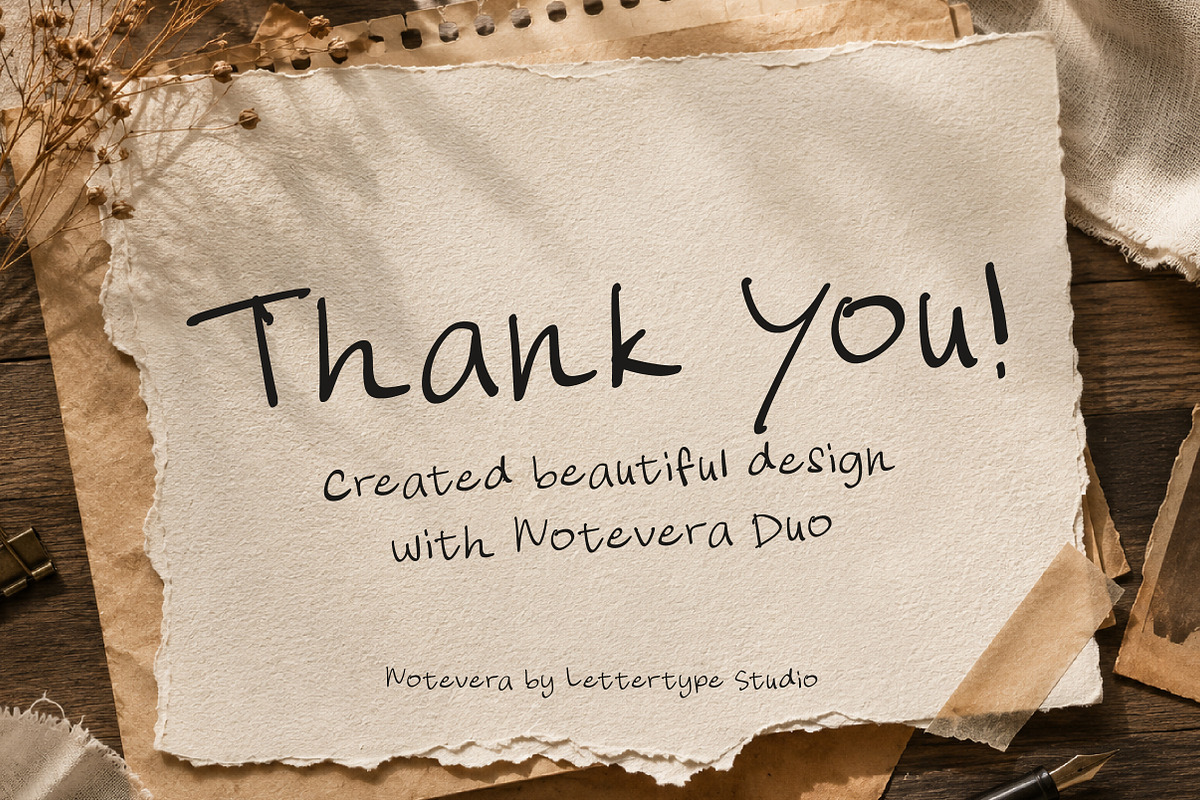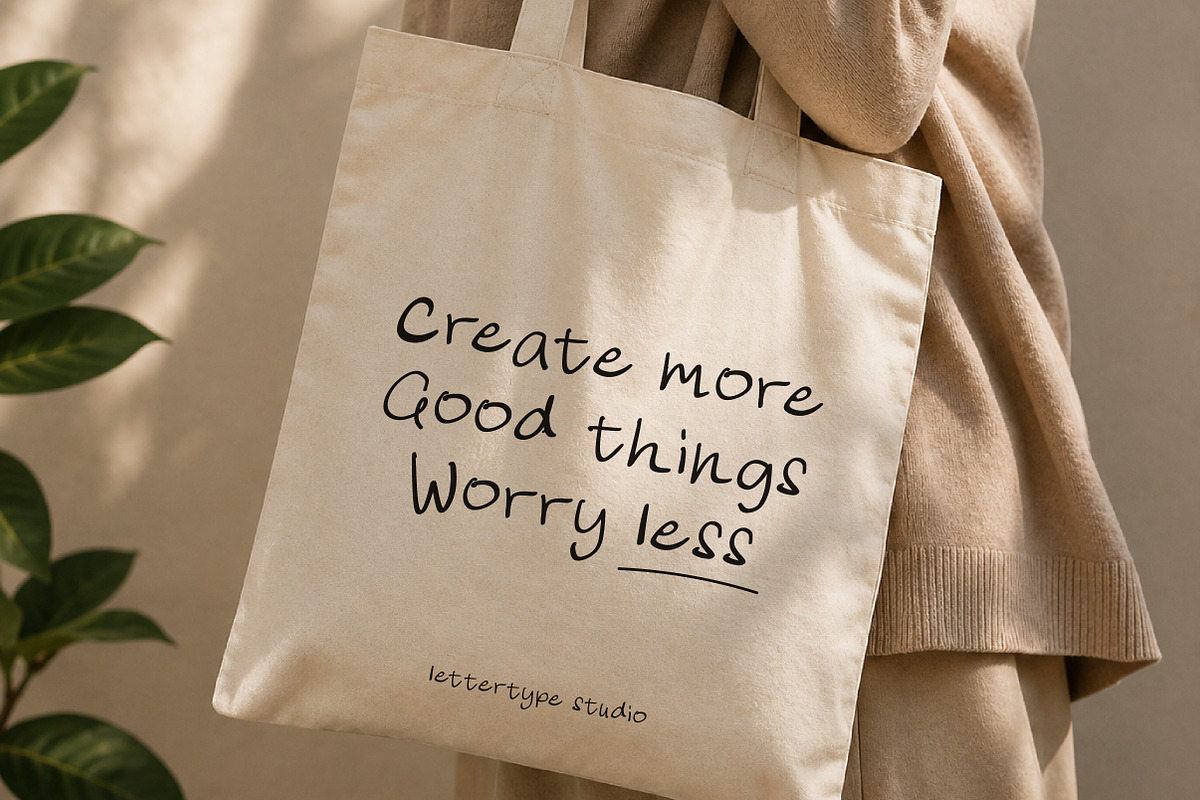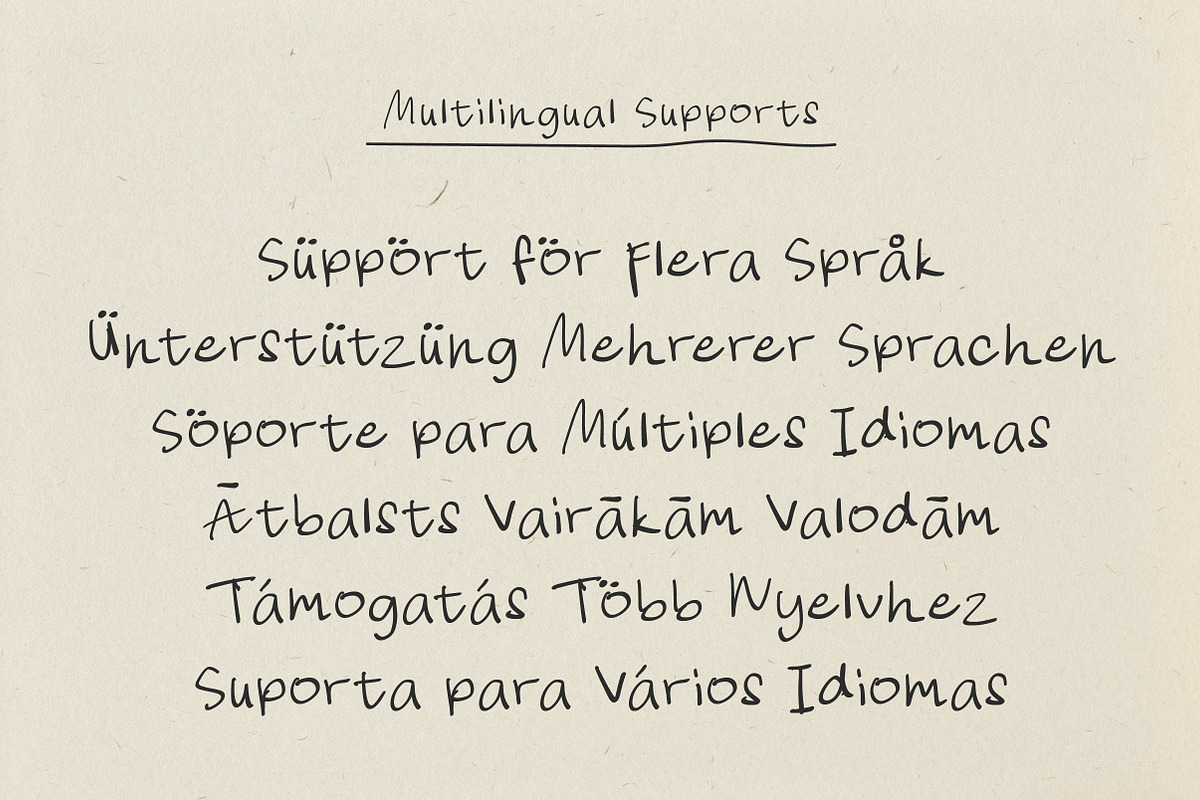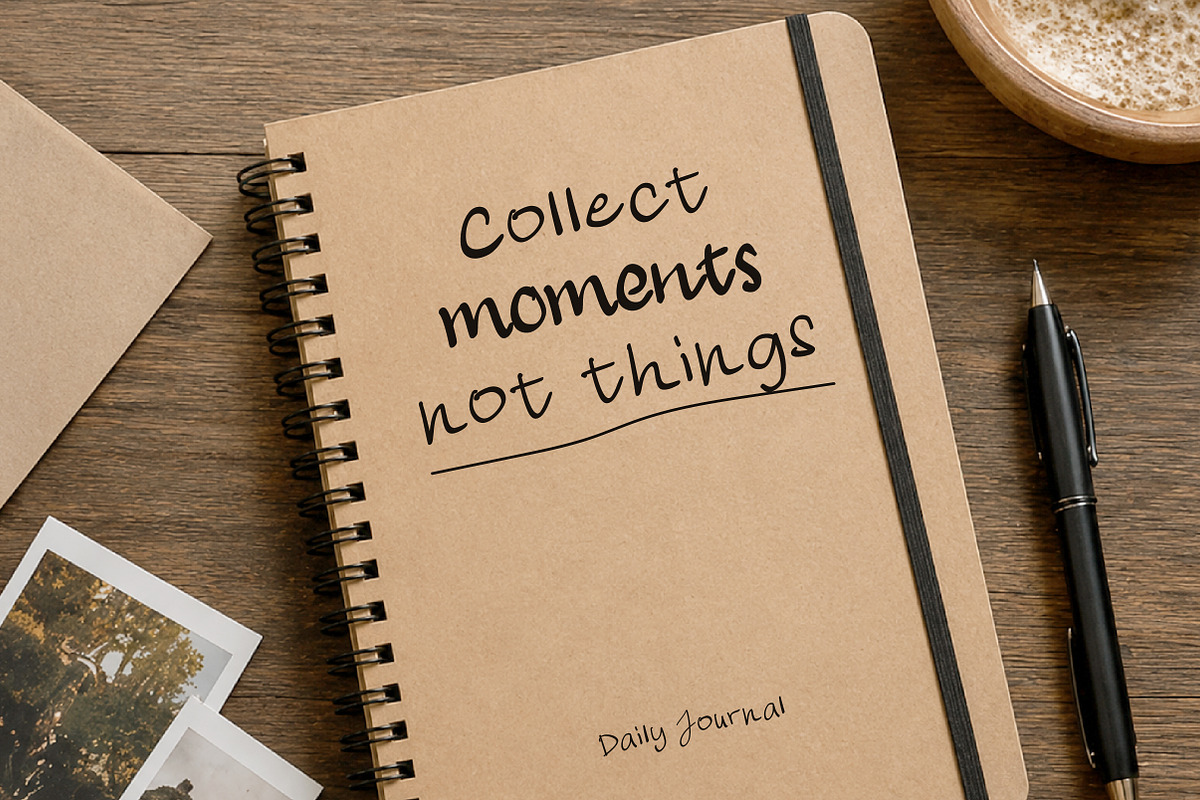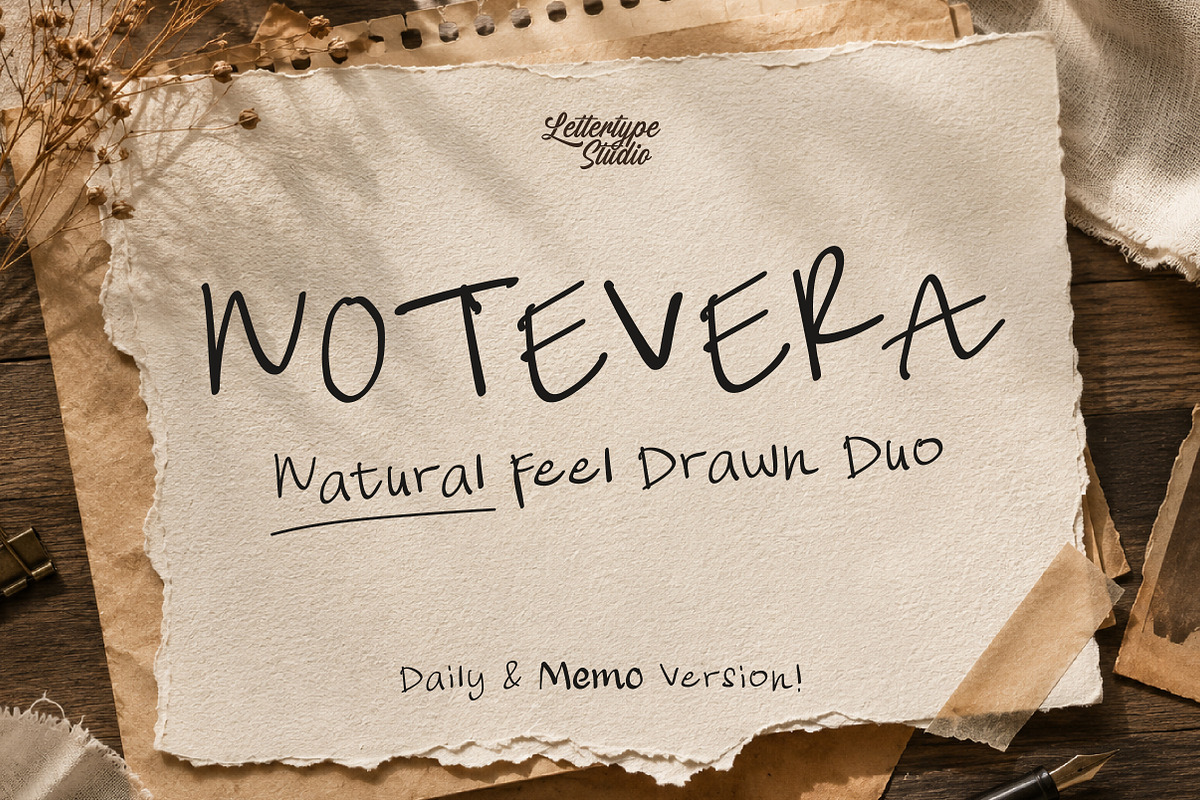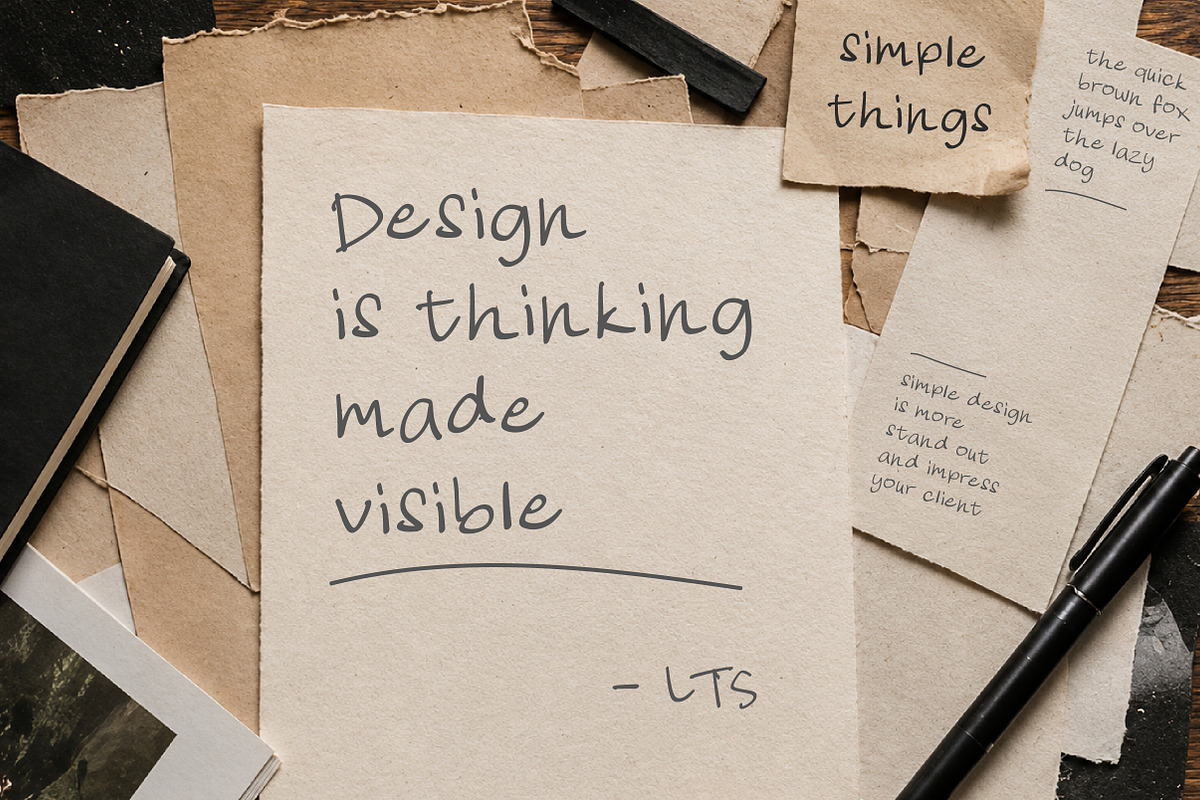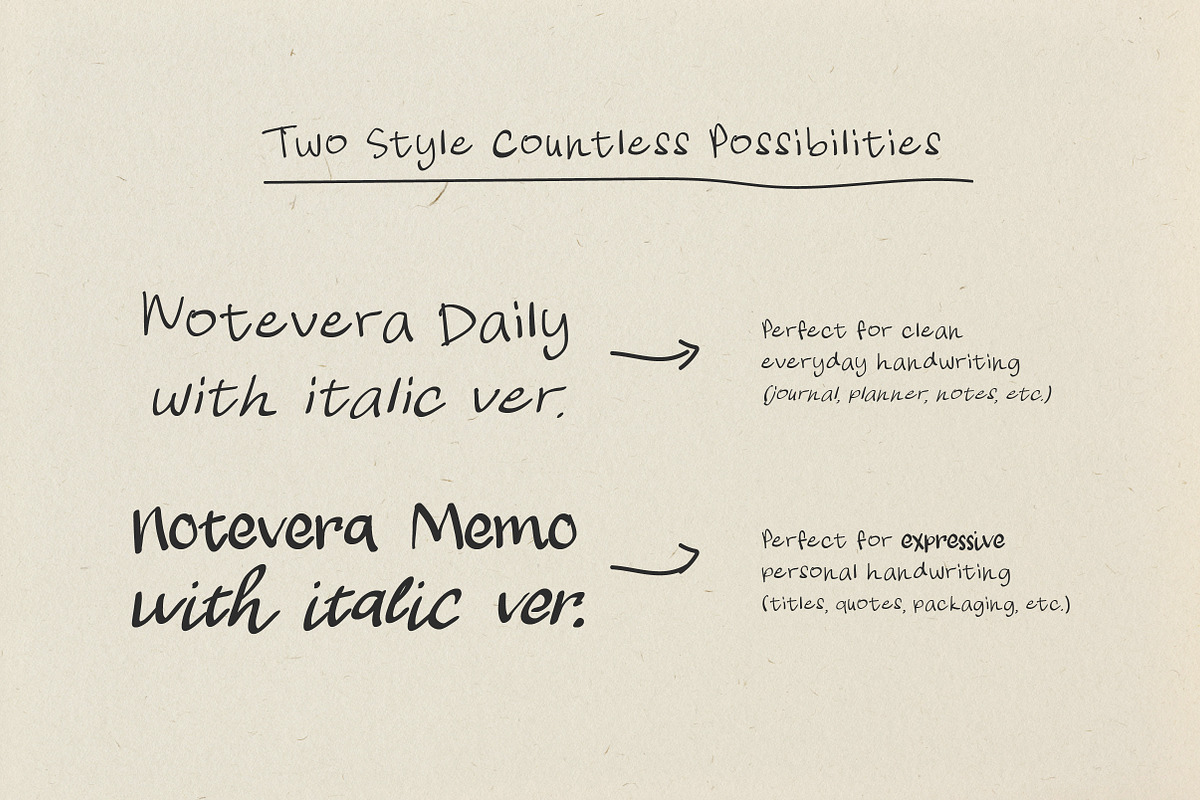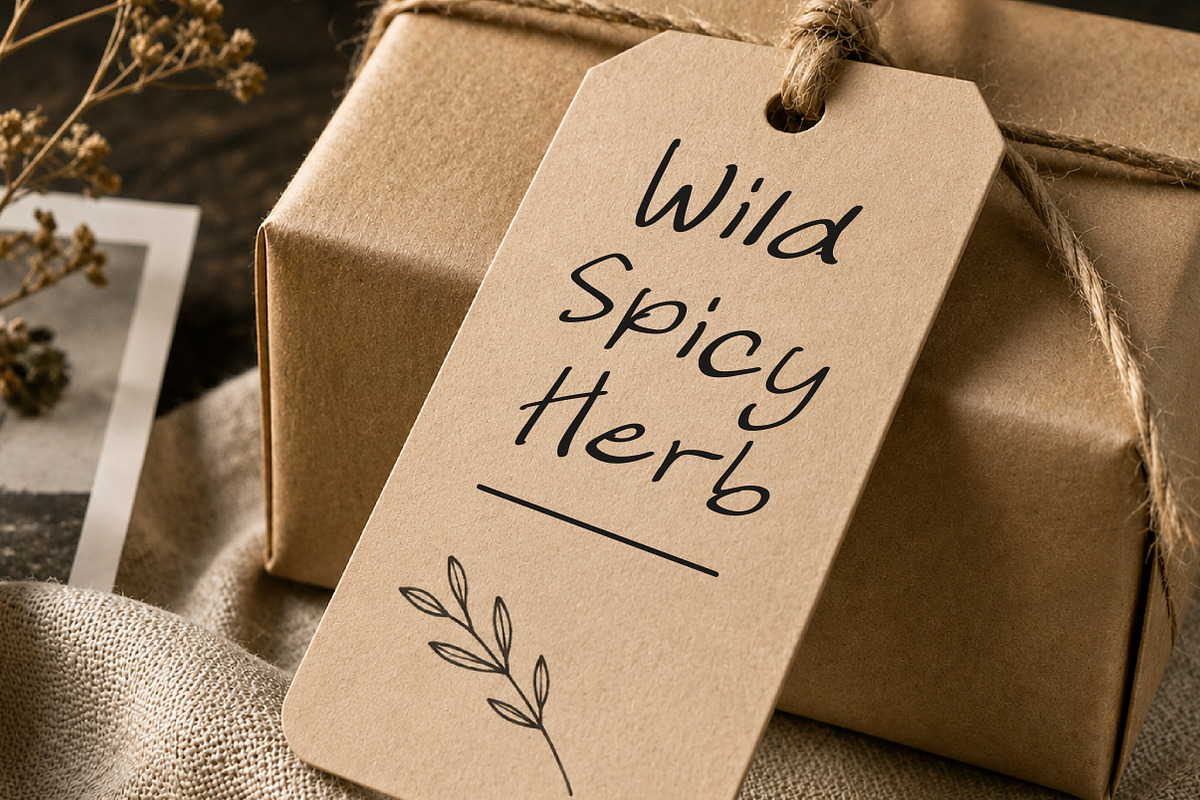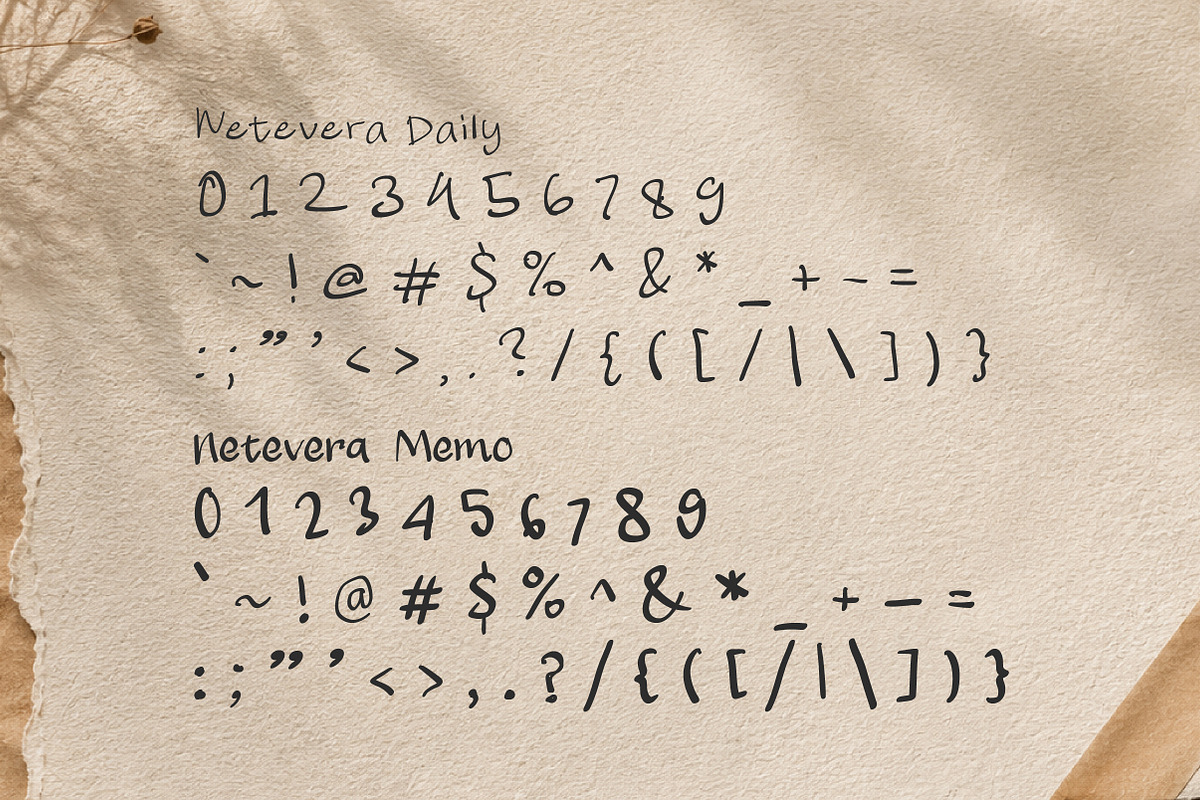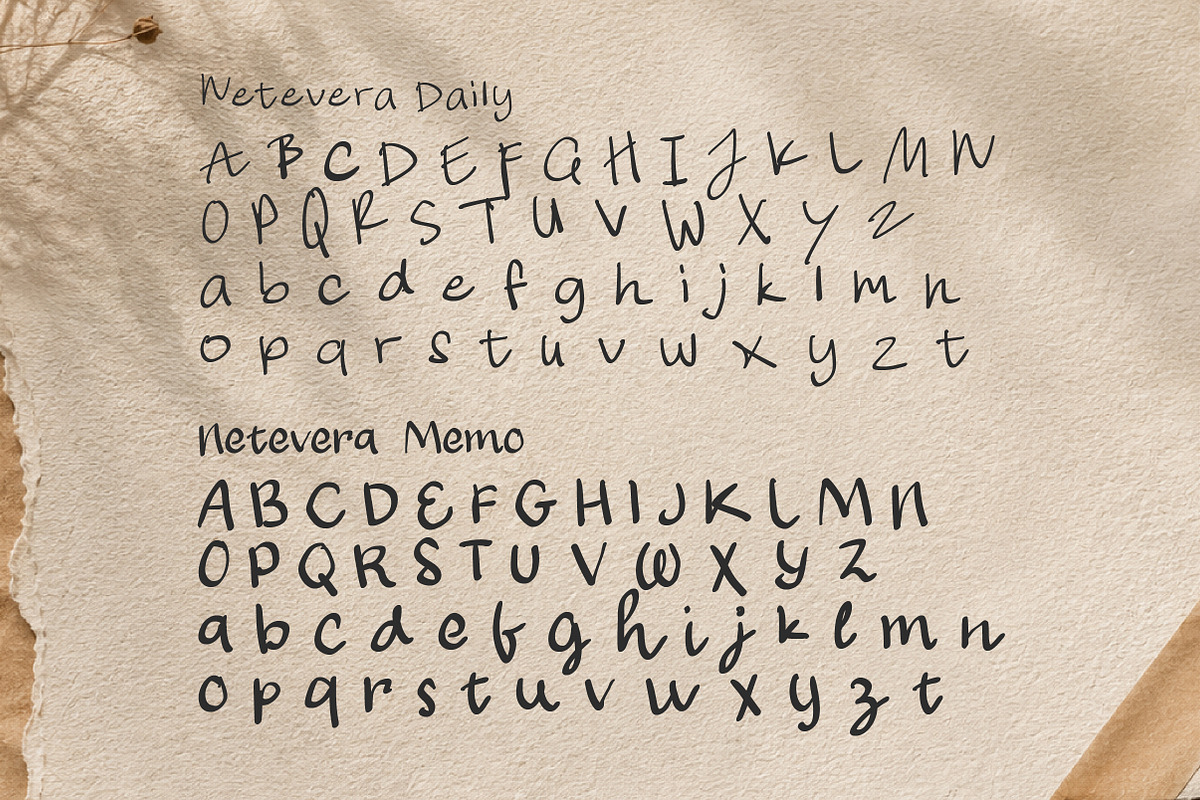
Notevera Duo - Natural Handwritten
Notevera Duo is a modern handwritten font duo crafted to capture the warmth of natural writing with a clean editorial touch. Designed with two complementary handwritten styles — Notevera Daily and Notevera Memo — this duo delivers a balance between readability and expressive personality, making it ideal for creative branding, journaling, social media, packaging, and modern stationery projects.
With its cozy handwritten rhythm and authentic drawn texture, Notevera Duo feels personal without losing professionalism. Whether used for aesthetic café branding, digital planners, Pinterest content, product packaging, Canva templates, or lifestyle visuals, this font duo creates a natural and approachable atmosphere while maintaining a premium modern look.
Notevera Duo Features:
4 Fonts & 2 Styles
Upright & Italic
386 Glyphs Total (each font)
260+ Languages Support
Journaling & Digital Planners
Café & Lifestyle Branding
Packaging & Product Labels
Social Media & Canva Templates
Editorial Quotes & Creative Presentations